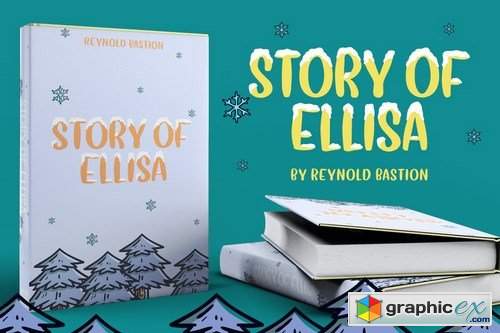
Sweet Winter - Layered Font Duo
Sweet Winter is a beautiful Display font. The family consists of 3 font. This font is suitable for any design like branding, quotes, t-shirt printing and etc.